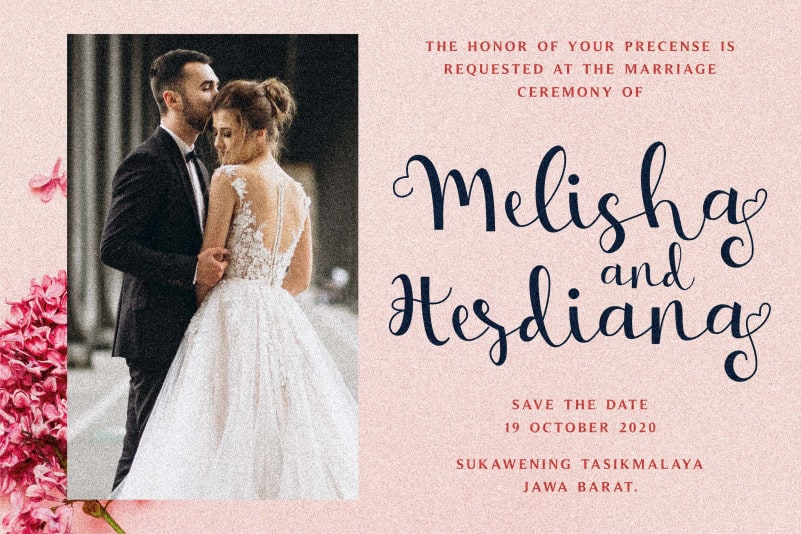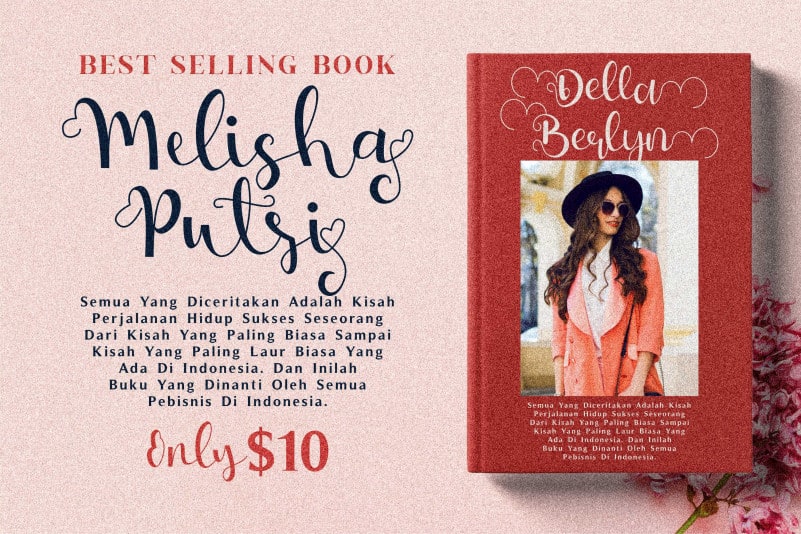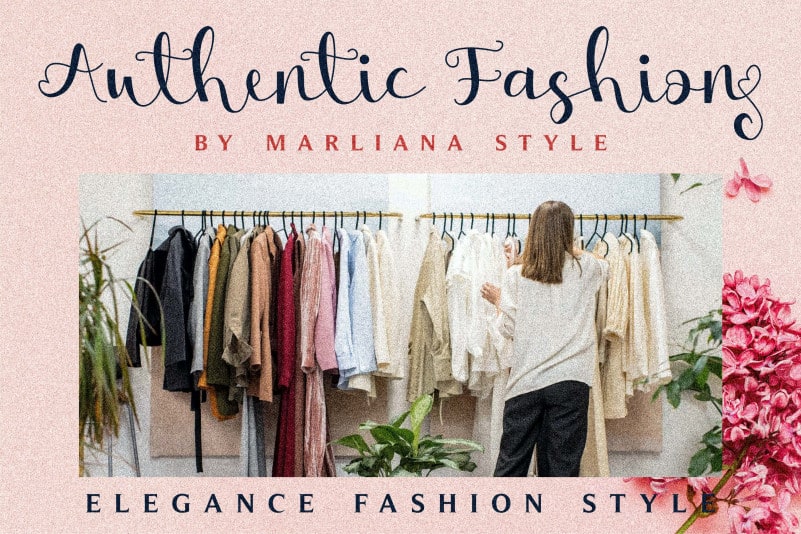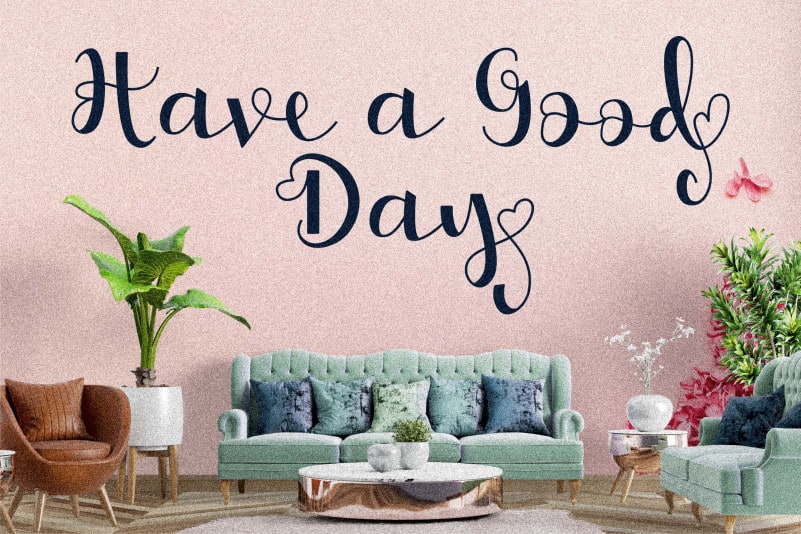
Melisha Putri Calligraphy Font
Melisha Putri Calligraphy Font is a sweet handwritten font with a romantic theme. Its natural and unique style makes it incredibly fitting to a large pool of designs. The only limit is your imagination!